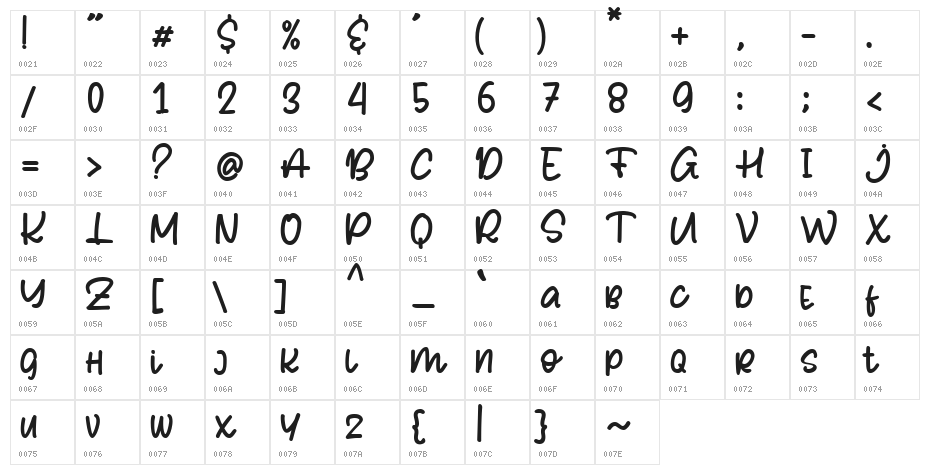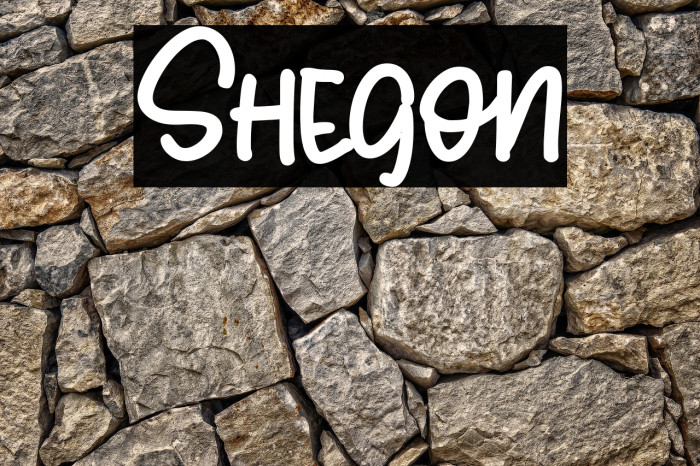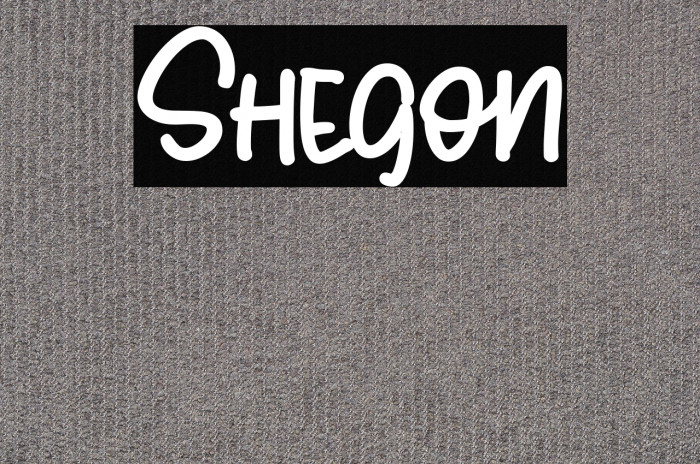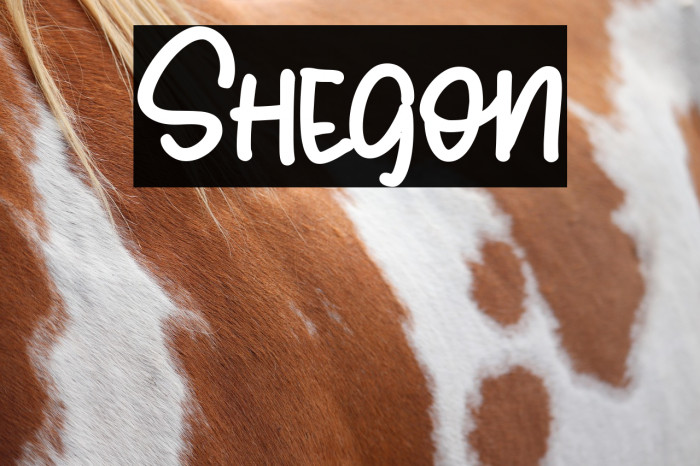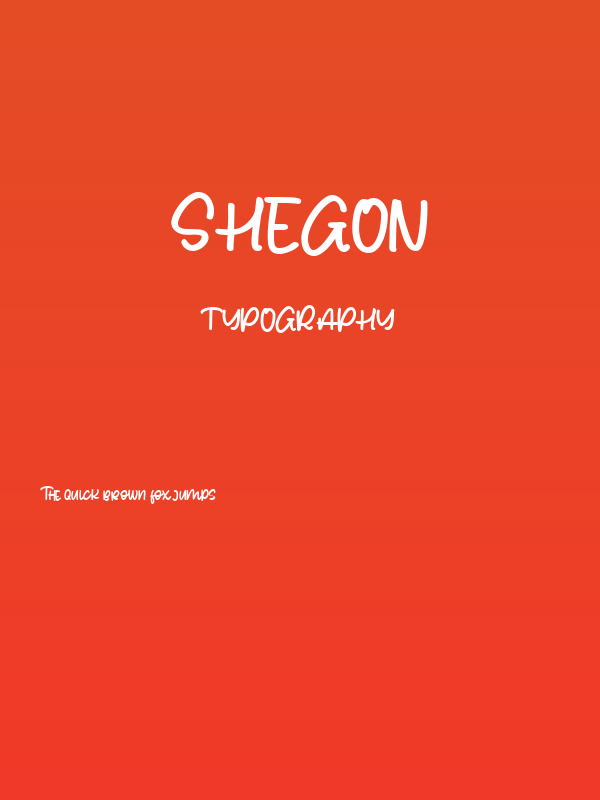
Shegon Font
Shegon Description
This font features a playful and energetic handwritten style, characterized by its bold and flowing strokes. The uppercase and lowercase letters maintain a consistent rhythm, with slightly exaggerated curves that give a sense of movement and liveliness. The numbers and special characters follow the same dynamic style, making the font versatile for various creative applications. The overall appearance is casual yet impactful, suitable for projects that require a personal touch.
| Overall Style | Casual, Energetic |
| Use Case | Headlines, Logos, Invitations |
| Proposed Projects | Ideal for greeting cards, invitations, posters, and branding projects that require a personal and lively touch. |